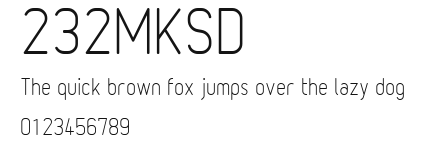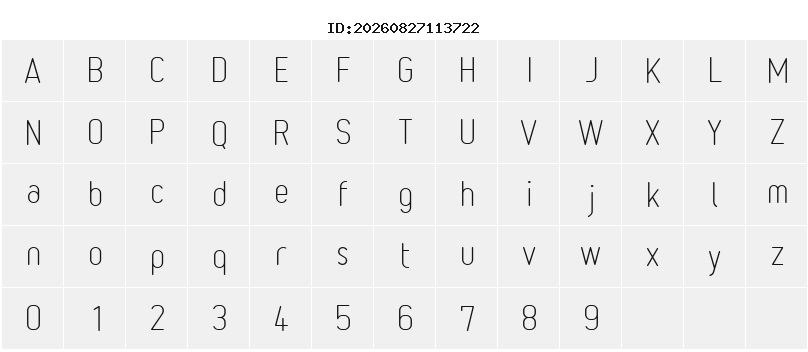
• Font Name: 232MKSD
• Font Style: RoundLight
• Font ID: Macromedia Fontographer 4.1J 232MKSD RoundLight
• Full Font Name: 232MKSD RoundLight
• Version: Macromedia Fontographer 4.1J 09.4.28
• PostScript Name: 232MKSDRoundLight
• Character Count: 133
About 232MKSD.ttf
232MKSD.ttf is a modern, elegant sans-serif font designed for ultimate readability and visual harmony. Perfect for branding, headlines, web design, and print materials.